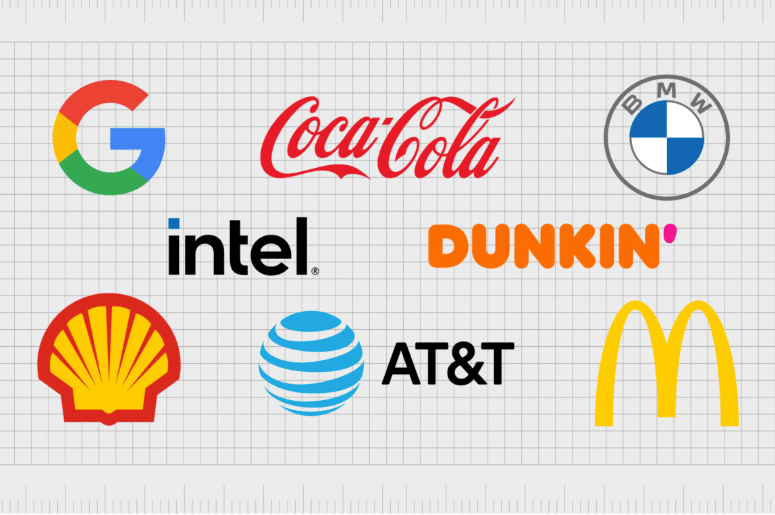
Your logo font isn't just text; it's your brand's voice before you say a word. Within milliseconds, potential customers form judgments about your business based on the typeface you choose.
Typography is way more than just choosing a pretty font; in fact, it's one of the most important elements in creating a perception and experience for your brand.
Yet most businesses treat font selection as an afterthought, picking whatever looks "nice" without considering what message they're actually sending. The difference between a font that builds trust and one that screams amateur can make or break your brand's first impression. Understanding logo typography isn't just design knowledge; it's business strategy.
Why Logo Font Choice Matters for Your Brand
The typefaces you choose can have a huge impact on the way your brand communicates. After all, it's not just what you say: It's how you say it. Your logo font works 24/7, appearing on everything from business cards to billboards, websites to product packaging.
Consider the psychological impact: a law firm using a playful script font undermines credibility, while a children's toy company with stern, corporate typography feels cold and unapproachable. If your business is "authoritative" or "educational," you may want to choose a transitional serif typeface. If you're "quirky" or "whimsical," a script font might be for you.
The stakes are higher in 2025's competitive landscape. Consumers interact with hundreds of brands daily through digital touchpoints. Your logo font needs to work across Instagram stories, mobile apps, email signatures, and traditional print, all while maintaining brand recognition and emotional connection.
Understanding the Four Main Logo Font Categories
Serif Fonts: Traditional Authority
Serif fonts feature small decorative strokes extending from letter forms. Think Times New Roman, but modern serif options offer sophistication without stuffiness. Brands like Vogue, The New York Times, and Tiffany & Co. leverage serif fonts to convey heritage, elegance, and trustworthiness.
Best for: Law firms, luxury brands, financial services, publishing, and high-end restaurants
Emotional associations: Trustworthy, established, refined, academic
Sans Serif Fonts: Modern Clarity
If you want to create a clean and minimalist look for your logo, then you should probably go with some sort of a sans-serif typeface. Some of the famous brands that use sans serif fonts in their logos are: Intel, Airbnb, Flickr, Nutella, Dropbox, MasterCard, Ebay, Adidas, and the new Google.
Sans serif fonts eliminate decorative strokes for clean, straightforward communication. They're incredibly versatile and work well across digital platforms where readability is paramount.
Best for: Tech companies, healthcare, startups, fitness brands, modern services
Emotional associations: Clean, efficient, approachable, contemporary
Script Fonts: Personal Connection
Script fonts mimic handwriting or calligraphy, ranging from elegant formal scripts to casual handwritten styles. They add personality and a human touch to brands but require careful consideration for readability across applications.
Best for: Beauty brands, wedding services, artisanal products, personal brands, creative agencies
Emotional associations: Personal, creative, feminine, luxury, handcrafted
Display Fonts: Distinctive Character
Display fonts are designed for headlines and logos, often featuring unique characteristics that make them memorable but potentially limiting. They work best when your brand name is short and the font truly aligns with your brand personality.
Best for: Entertainment, sports teams, unique retail concepts, event brands
Emotional associations: Bold, memorable, specialized, attention-grabbing
Brand Psychology: Matching Font to Personality
Start your font selection by defining your brand's personality with specific adjectives. This exercise prevents emotional decision-making and ensures your typography aligns with strategic positioning.
Traditional/Established Brands: Heritage brands benefit from serif fonts that communicate longevity and expertise. Consider modern serif options that maintain classic associations while feeling current. Trajan Pro works for financial institutions, while Minion Pro offers readable elegance for professional services.
Innovative/Modern Brands: Technology and forward-thinking companies often choose geometric sans serif fonts that feel cutting-edge. Fonts like Futura, Helvetica, or Proxima Nova communicate efficiency and modernity without personality overload.
Creative/Artistic Brands: Creative industries can push boundaries with custom lettering or distinctive display fonts. However, ensure uniqueness doesn't sacrifice legibility. Your logo needs to work at favicon size and massive billboard scale.
Approachable/Friendly Brands: Rounded sans serif fonts like Circular or friendly scripts create warmth and accessibility. Service-based businesses often benefit from fonts that feel human and welcoming rather than corporate and distant.
The perfect logo font exists at the intersection of your brand personality, target audience expectations, and practical application needs. When these elements align, typography becomes a powerful tool for building brand equity and customer connection.